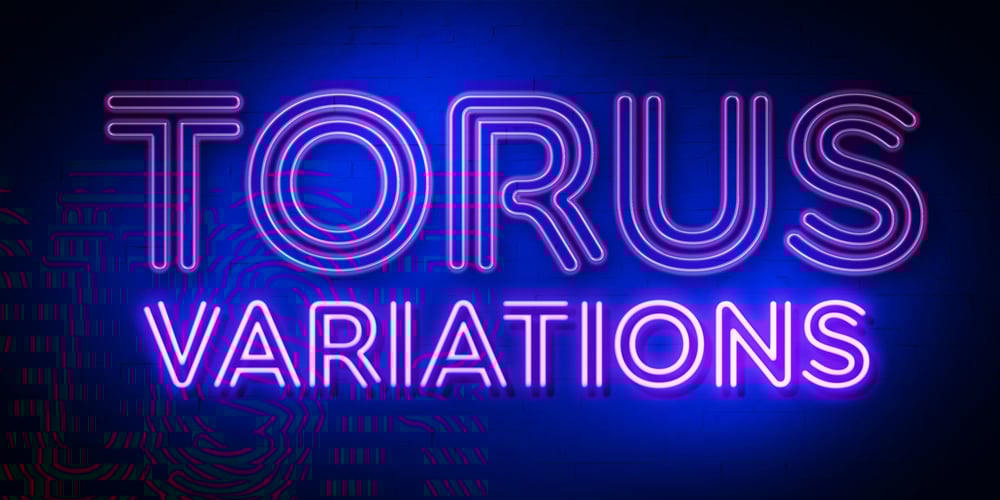
Torus Variations Font Family was designed by Paulo Goode and published by Monotype. Torus Variations contains 24 styles and family package options. Torus Variations are an addition to the original monoline Torus family from 2017. The four new styles are Biline, Outline, Inline and Notched. The Torus family has been designed specifically for use in logo design, headlines and for branding purposes. While the default character sets are distinctive in their own right, graphic designers will love playing with the numerous alternate glyphs that will help them create unique wordmarks and logo designs. Torus’ simplistic forms and soft terminals make this a lovely, warm typeface perfect for a multitude of typographic applications. Key features: • 4 styles • 6 weights • 49 Alternates (via 2 Stylistic Sets) • Full European character set (Latin only) • 550+ glyphs per font.